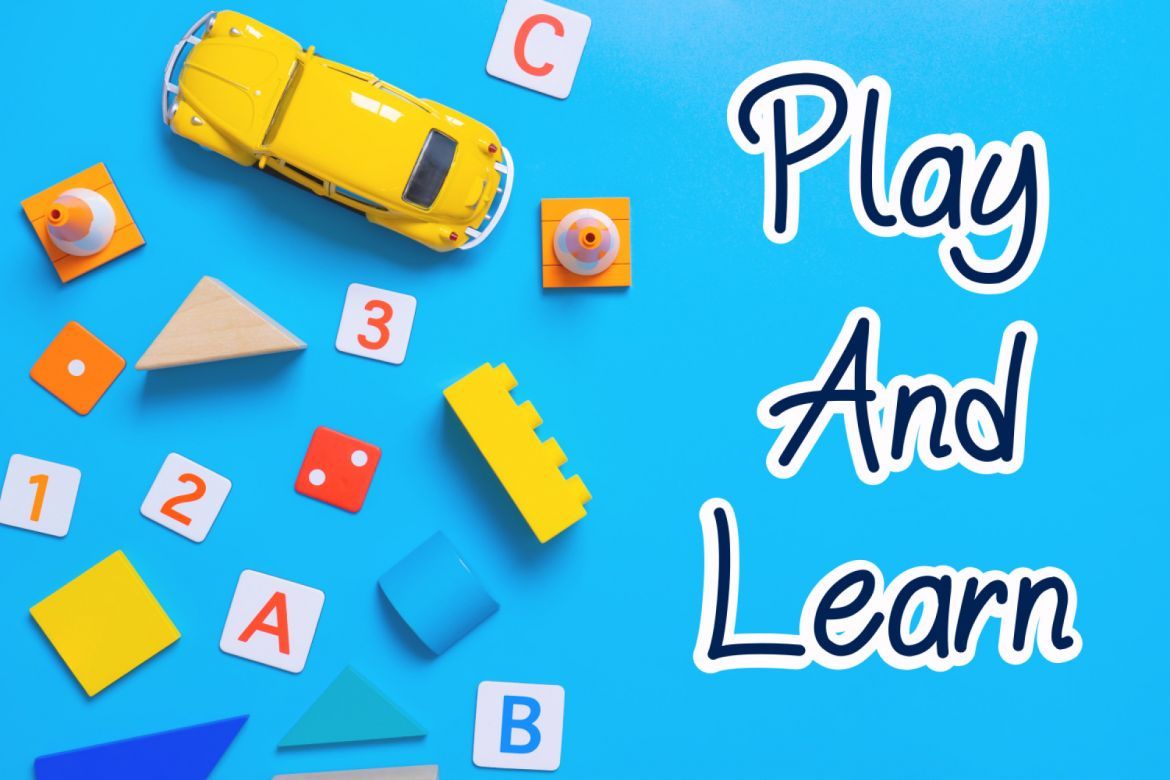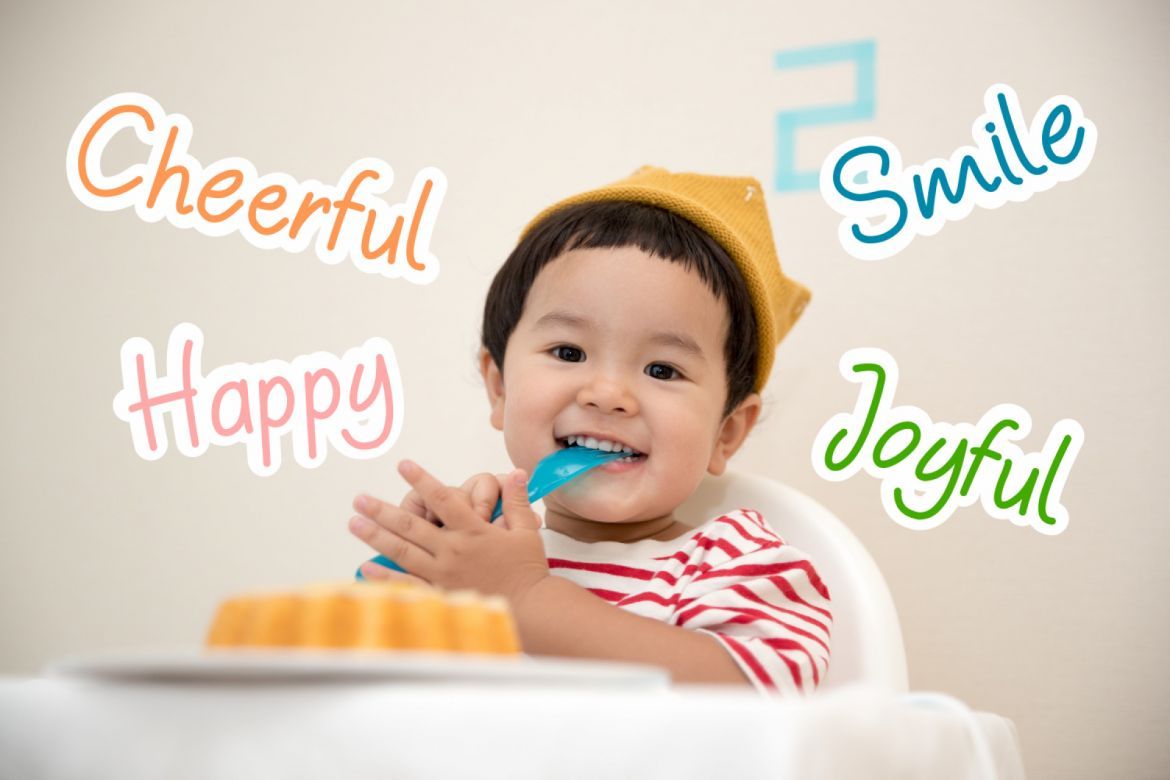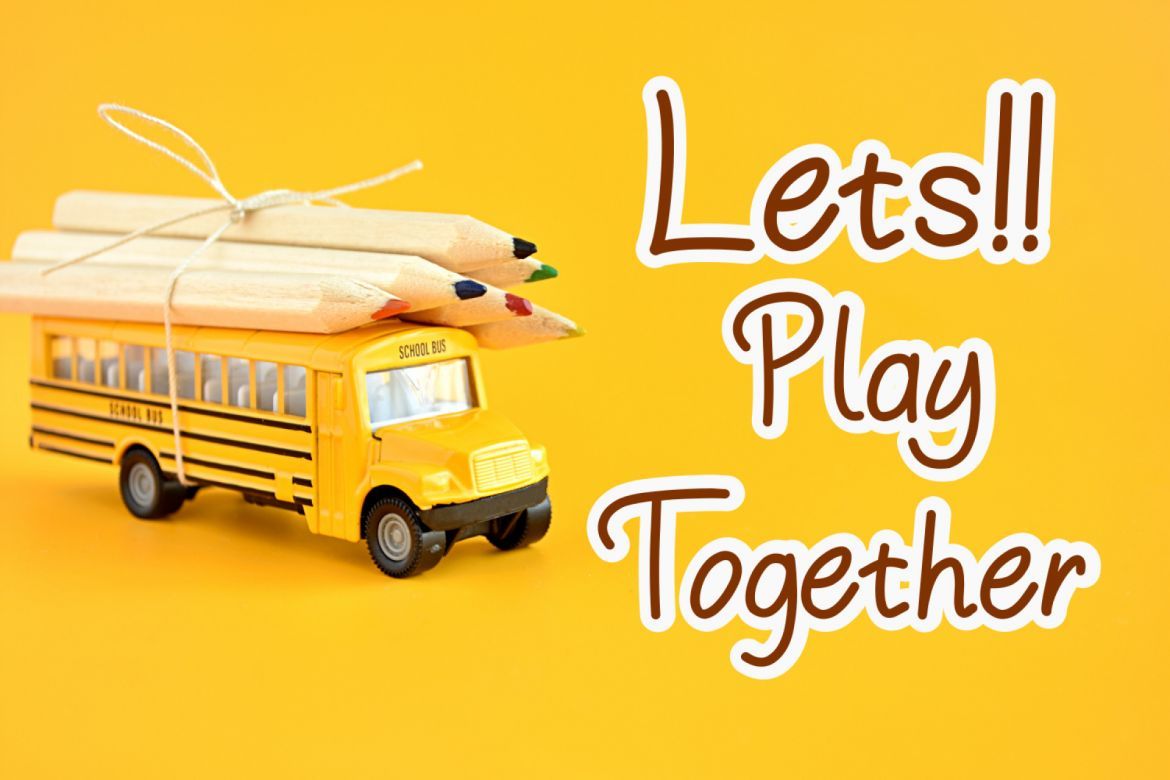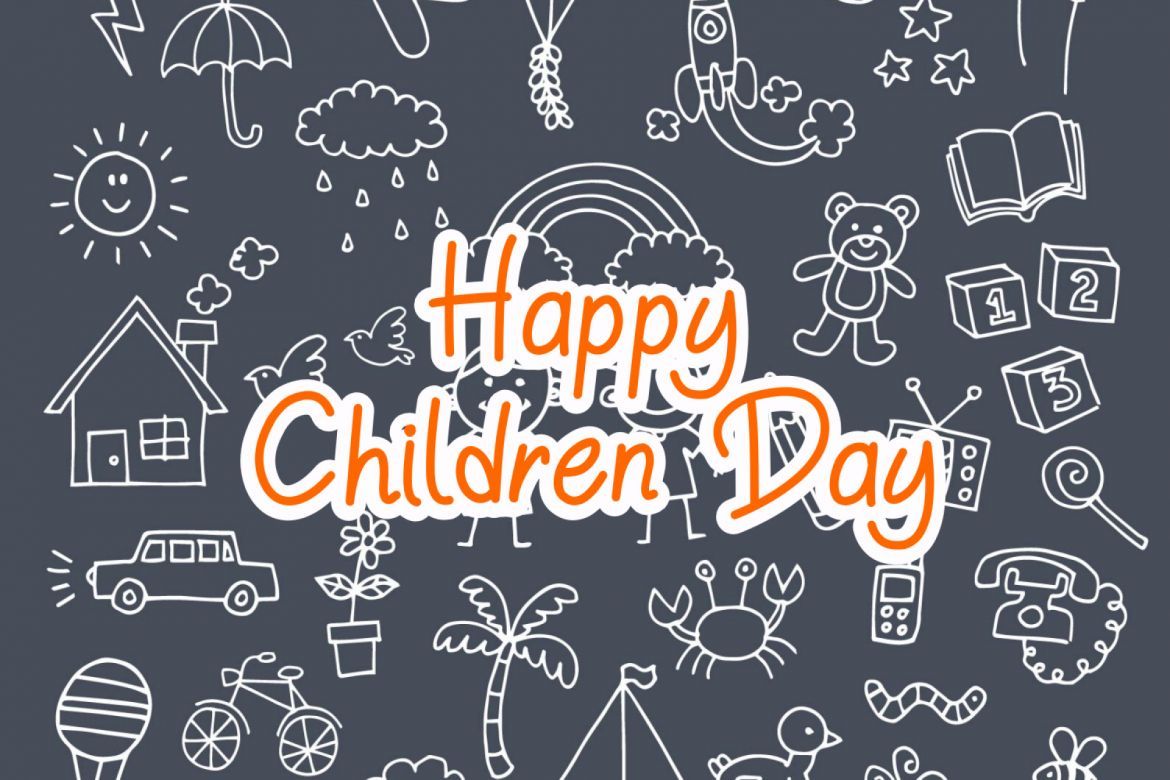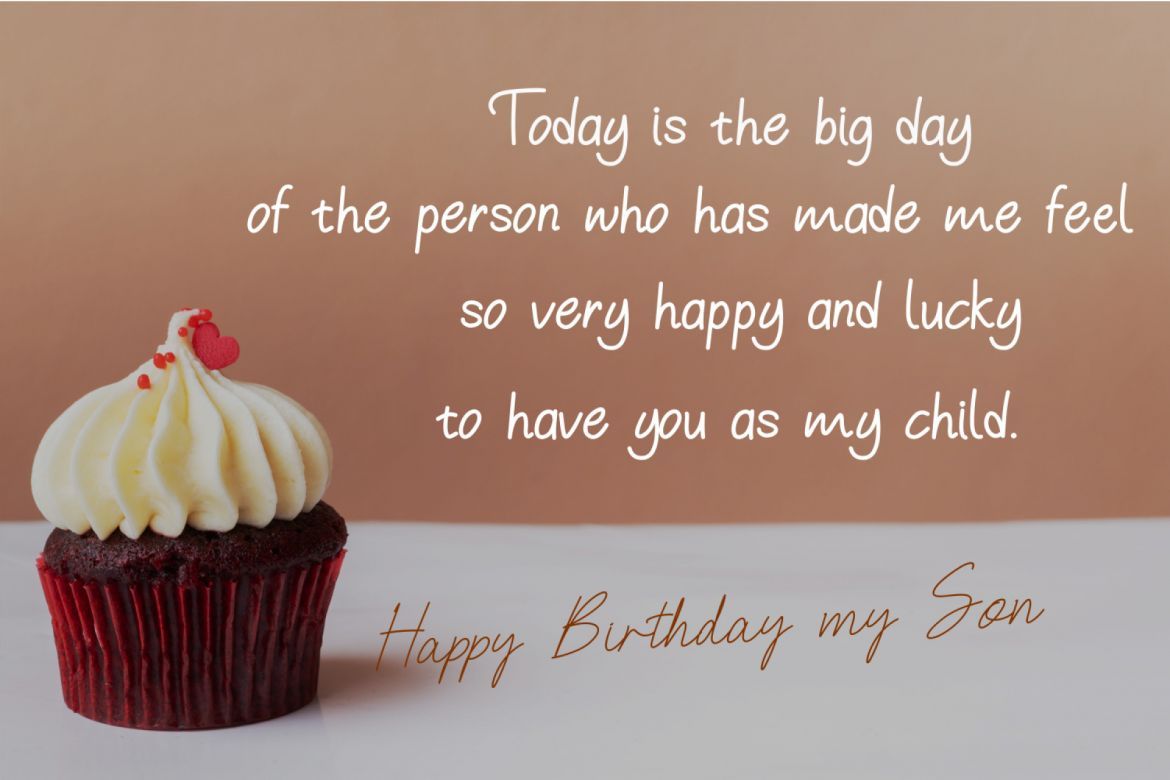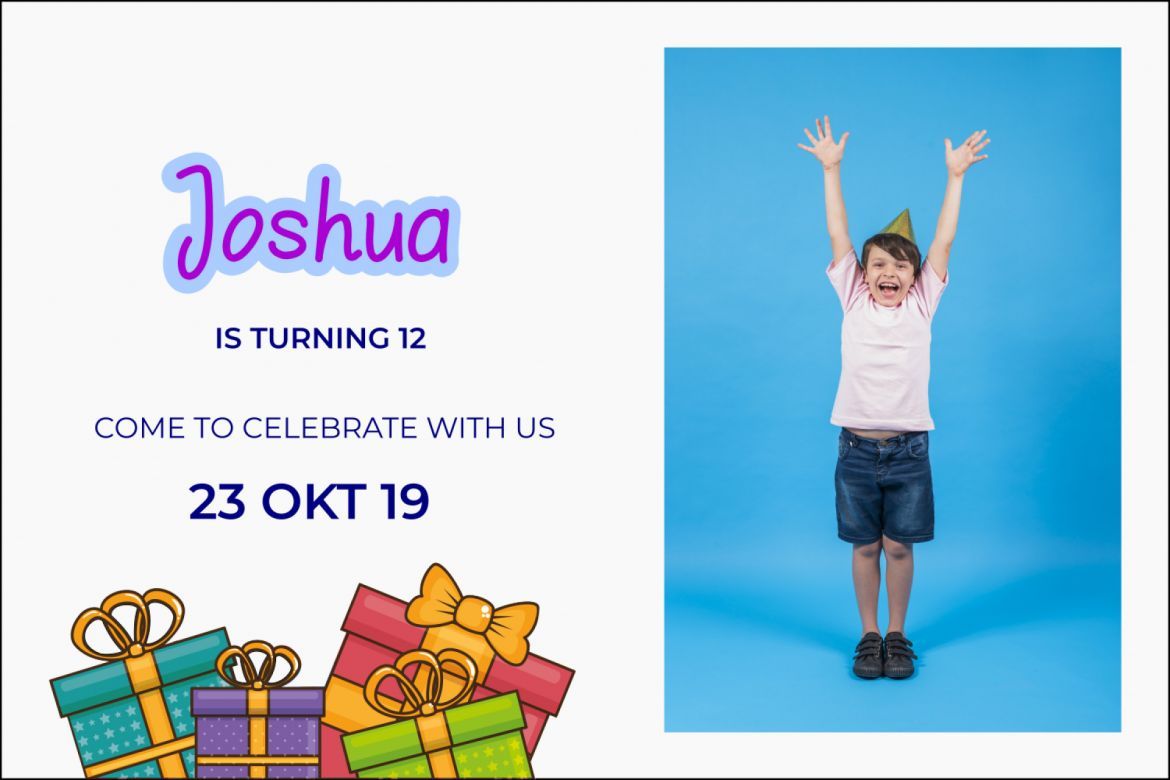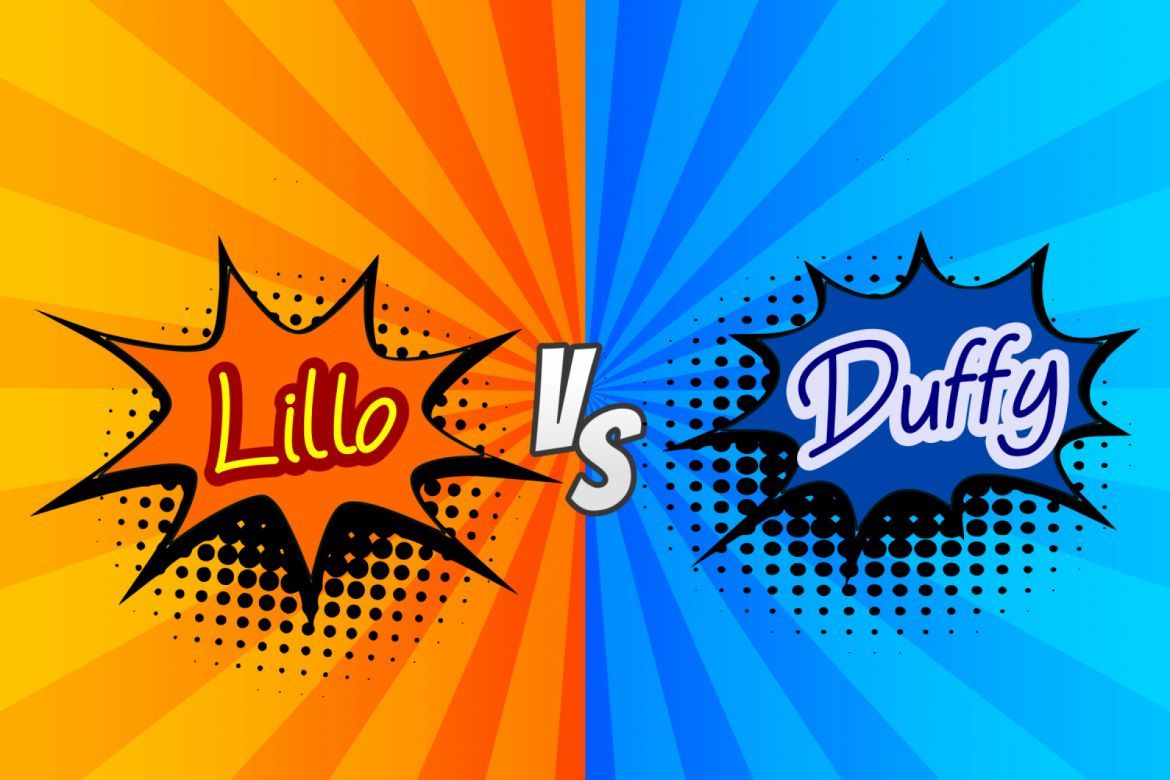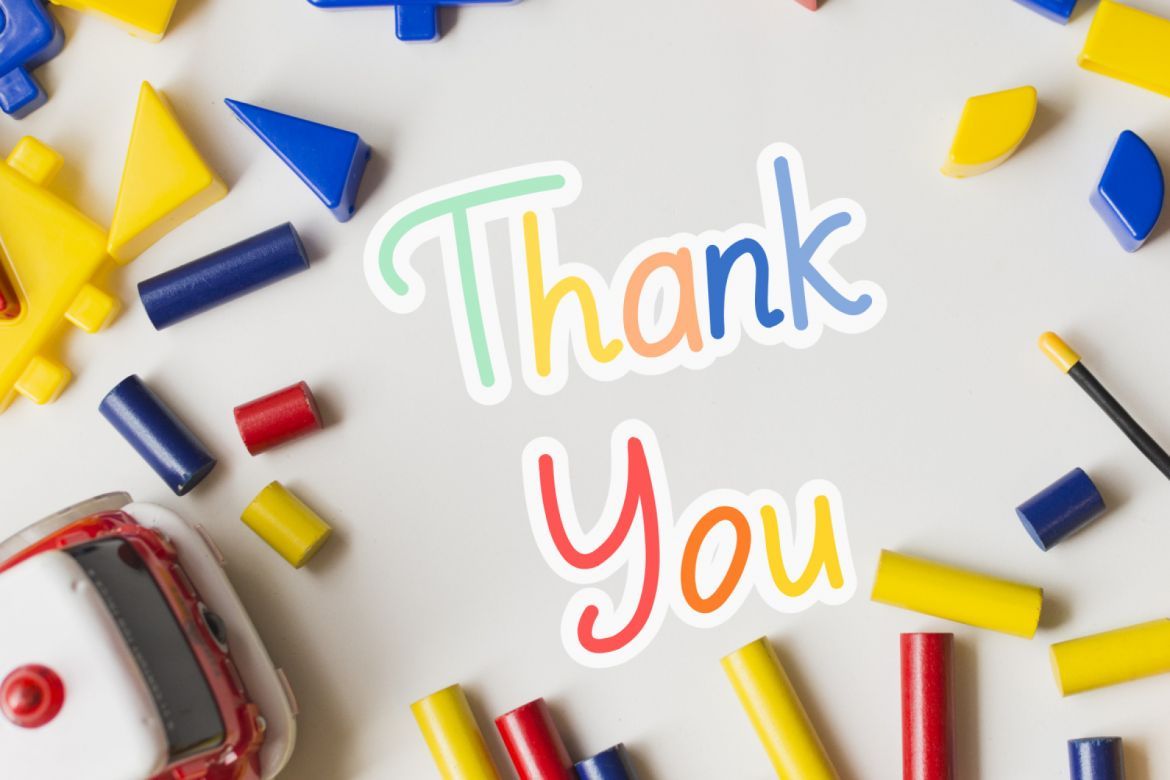
Mysterio Fun Font
Hello, Mysterio fun font is sans serif font. It brings joyful and happiness to all of us. Inspired by handlettering with marker pen with bold and strong style. This font is ideal for display, text, print, branding, birthday, birthday invitation, with a set of optimal characters for your design in any layout. Happy Design
• you get uppercase, lowercase, numeral, punctuation, ligatures, multilingual characters support